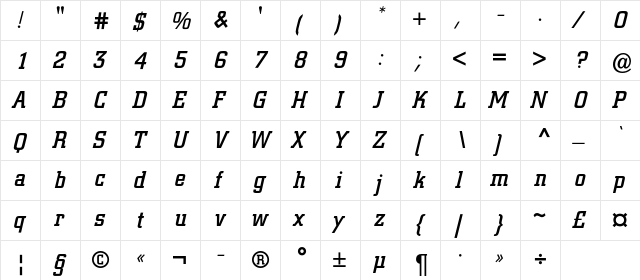
Coliseum-BoldItalic Regular Font Preview
Coliseum-BoldItalic Regular
Coliseum-BoldItalic Regular Font Details
Design Context for Coliseum-BoldItalic Typeface
Coliseum-BoldItalic offers clean, dependable letterforms without strong stylistic allegiance, making it a practical choice for designers who need flexibility. The dynamic lean of this cut emphasises speed and emphasis in any layout. Its bold stroke weight gives it real presence on the page.
Pro Tip: Use Coliseum-BoldItalic for emphasis, pull quotes, and subheadings where its slanted energy can add rhythm to the layout.